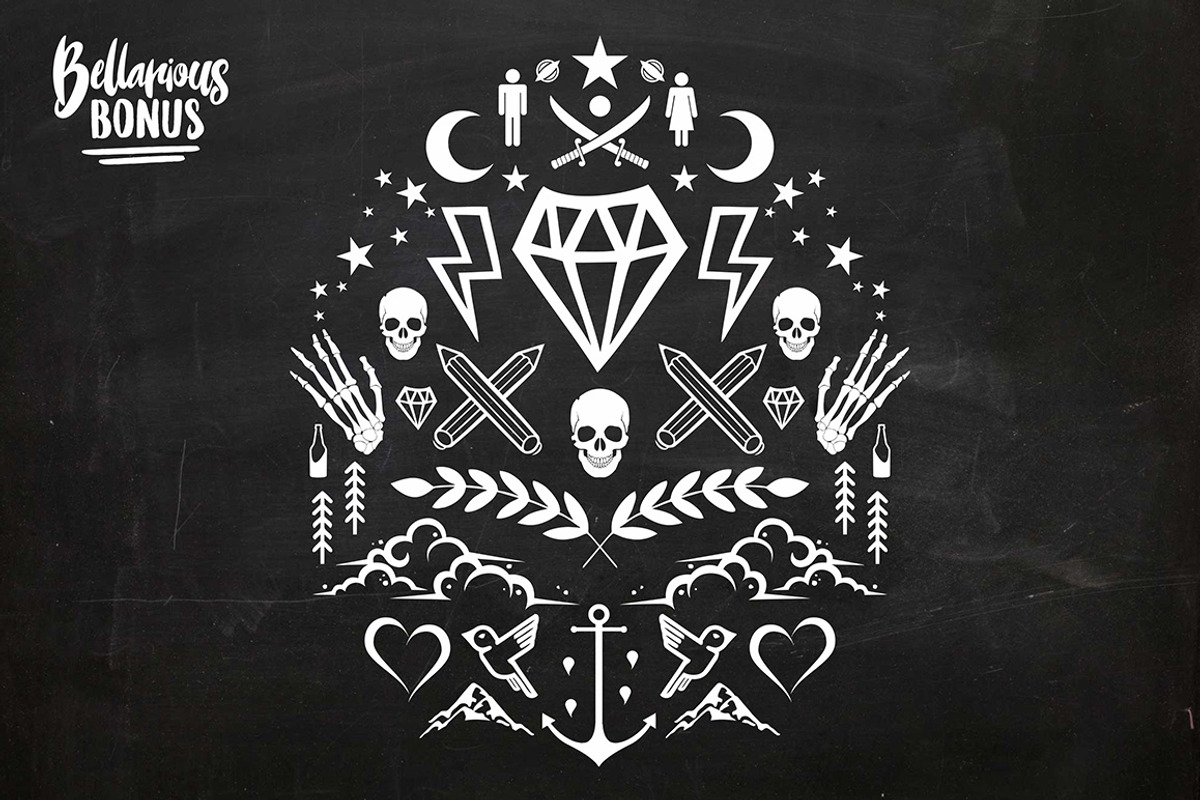
Bellarious (intro sale + Bonus)
Bellarious is new font from Rvq Typefoundry, beautiful brush-lettered font with font duo The minier new typeface with classy, elegant and vintage feel character set. To create the beautiful combination, just mix the uppercase and lowercase then mix with the alternative glyphs. The Bellarious and The Minier includes a full set of capital and lowercase letters, as well as multi-lingual support, currency figures, numerals, punctuation & some extra glyphs.
-- Bellarious -- The Minier
-- Character Set A-Z
-- Numerals & Punctuations (OpenType Standard)
-- Accents (Multilingual characters)
-- Stylistic Alternates
Bellarious and The minier is suitable font for many creative products & designs.